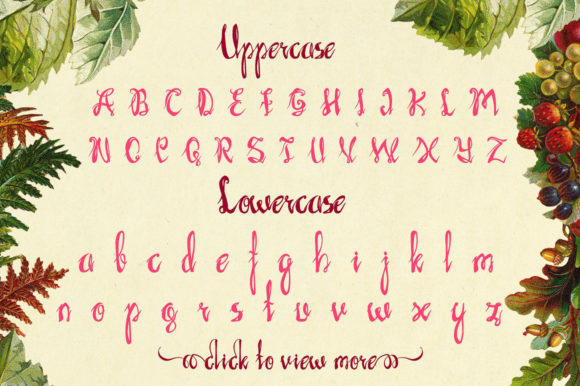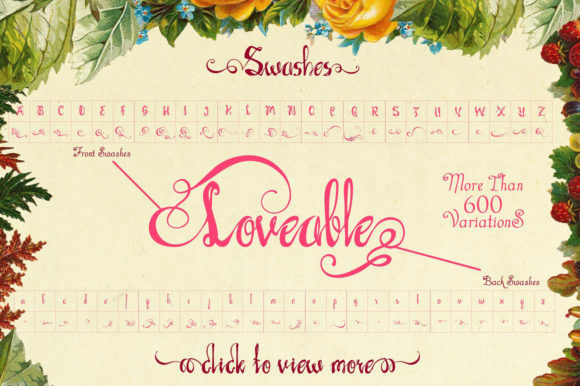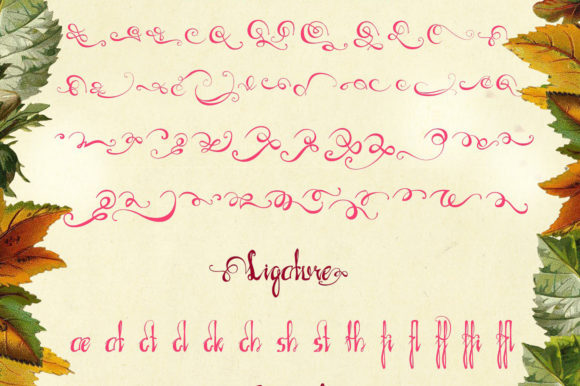
Introduction to Luvdove Font
Luvdove is a delicate and romantic handwritten font with incredible swashes.
Fall in love with its authentic charm, and turn any design idea into a stunner .